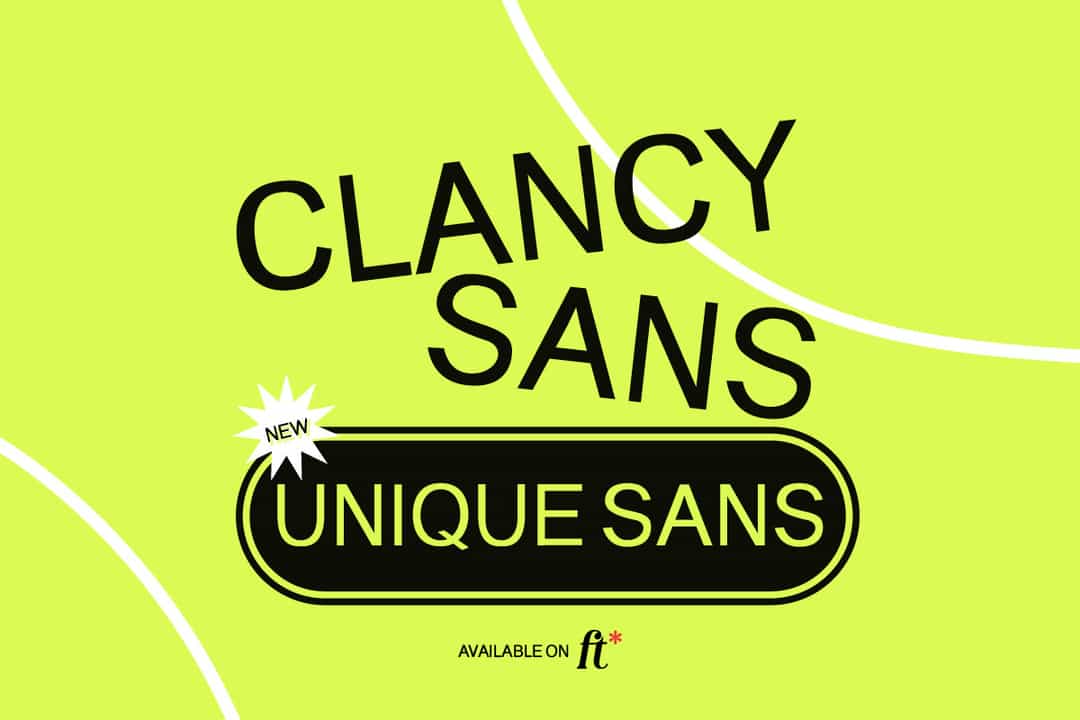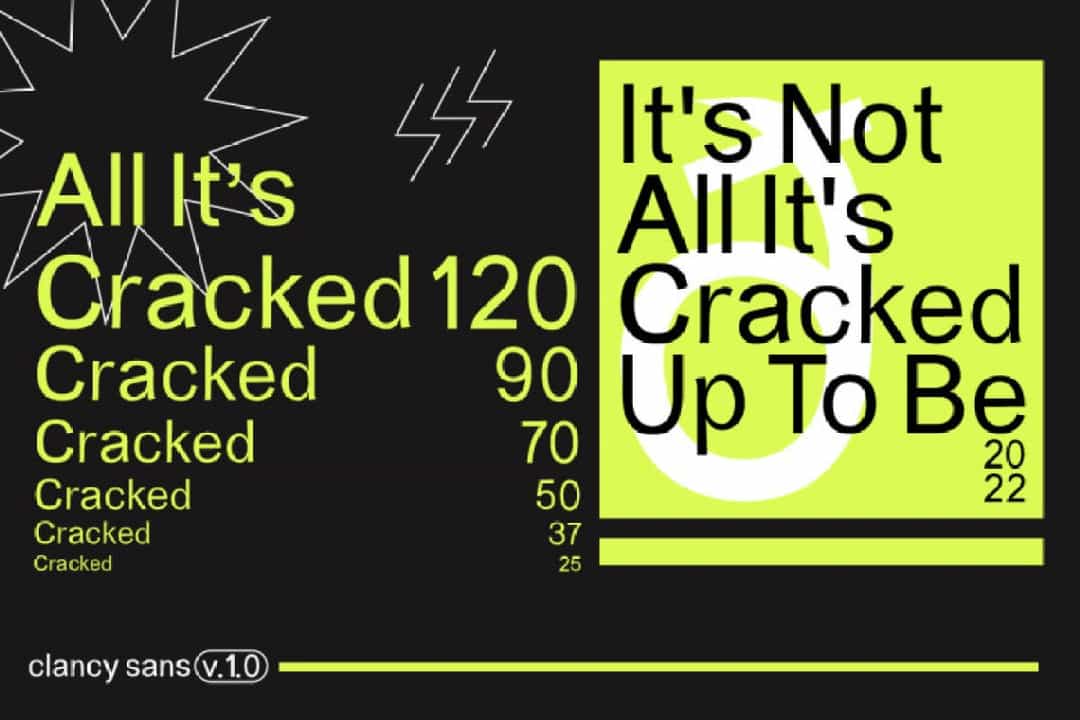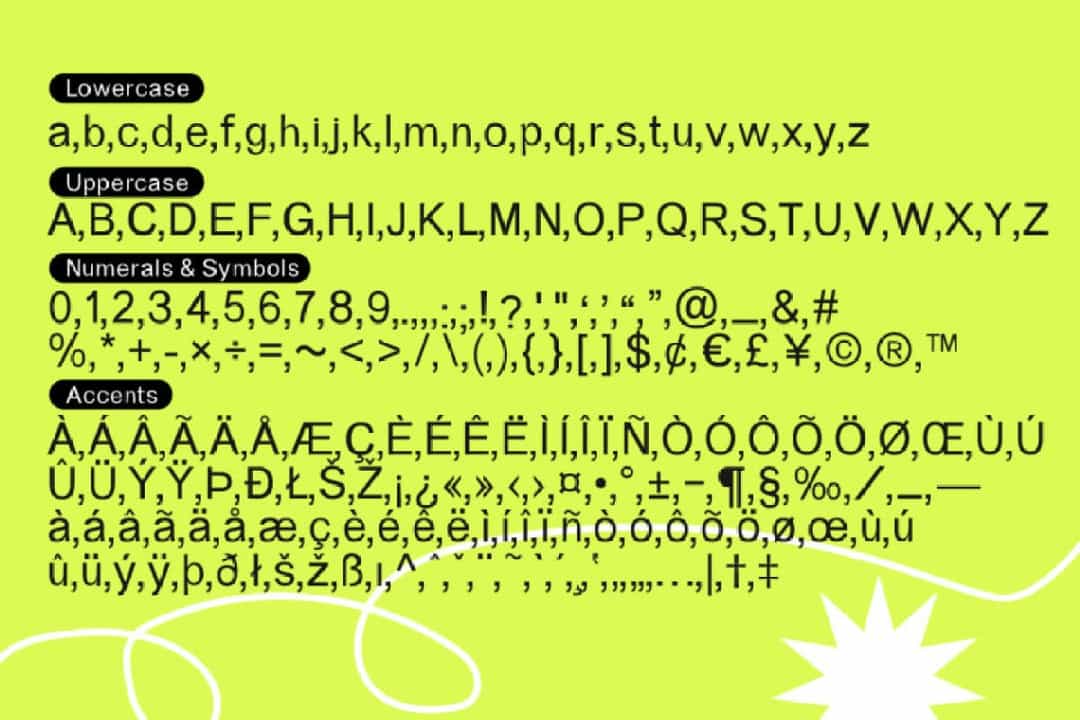
Clancy, a modern sans serif typeface designed by Type Foundry that blends sophistication with eye-catching headlines, was introduced as part of its range of licensing options to meet various design needs. This versatile font was intended to appeal to those looking for a stylish font capable of producing both body text and headlines – providing the versatility for body text production as well as eye-catching headlines.